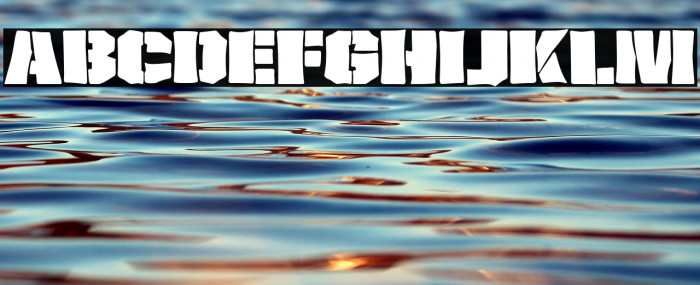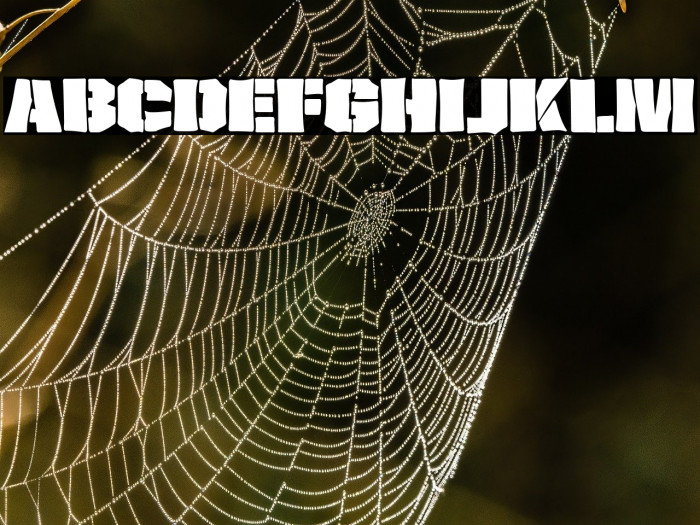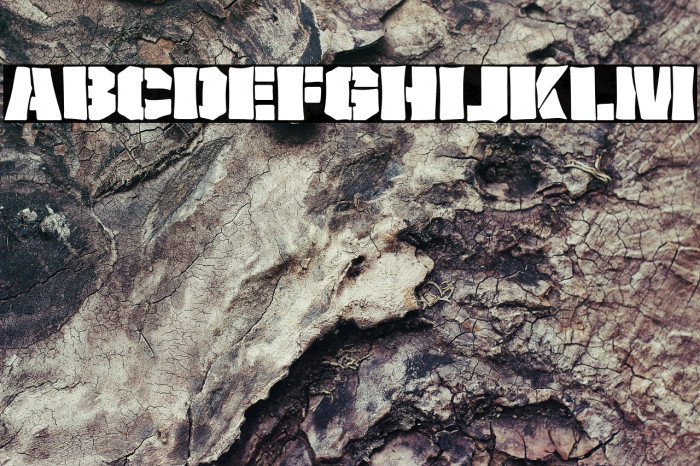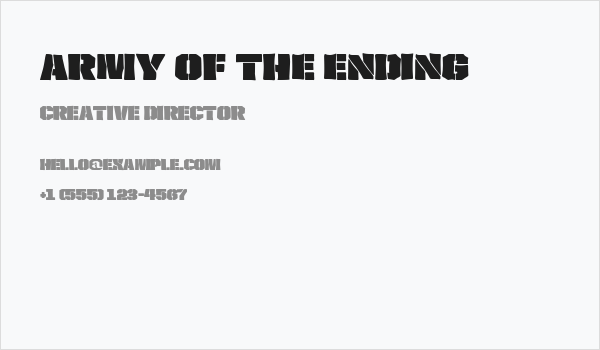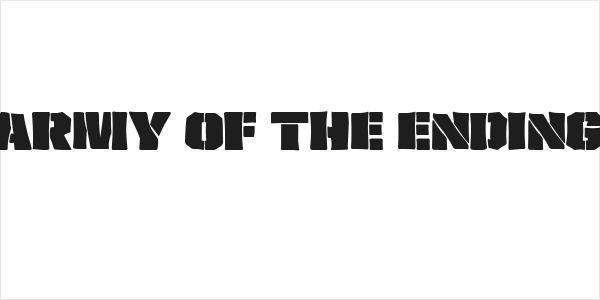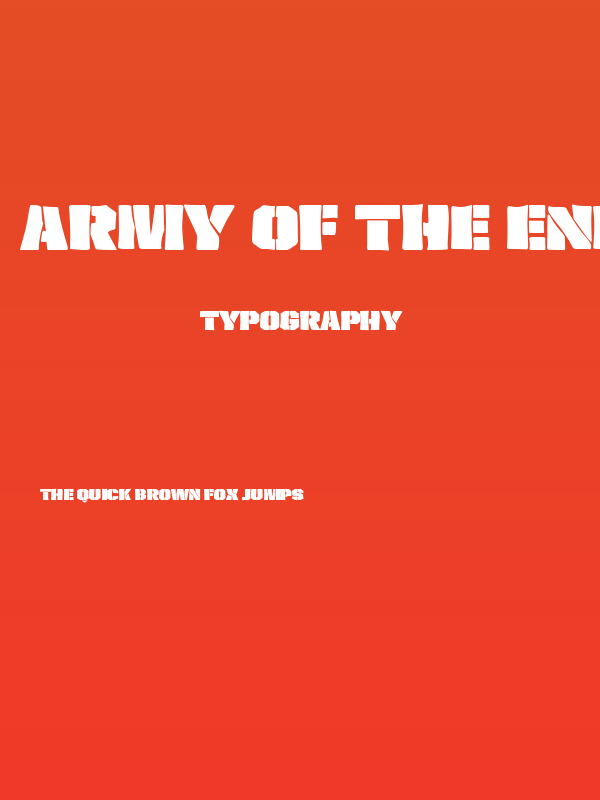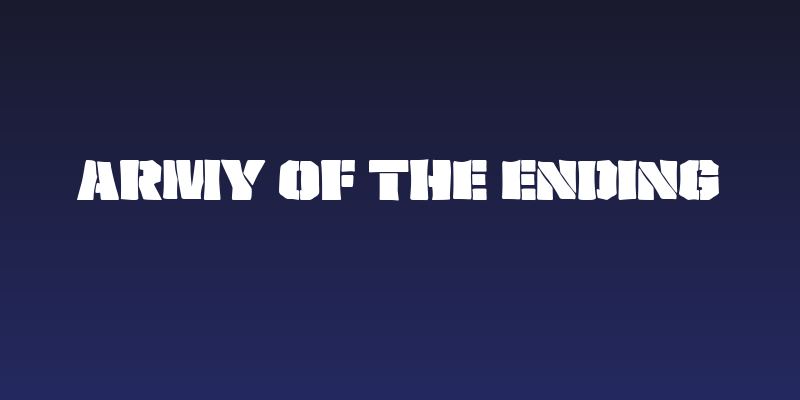
Army of the Ending Font
Army of the Ending Description
A bold, stencil-style display font with heavy, blocky letterforms and irregular, rugged edges, evoking a military or industrial aesthetic. The characters are uppercase only, with consistent height and width, and feature cut-out sections typical of stencil designs.
| Overall Style | Decorative, Military, Industrial |
| Use Case | Headlines, Posters, Logos, Signage |
| Proposed Projects | Posters, military-themed graphics, video game titles, signage, event flyers, branding for tactical or industrial products. |